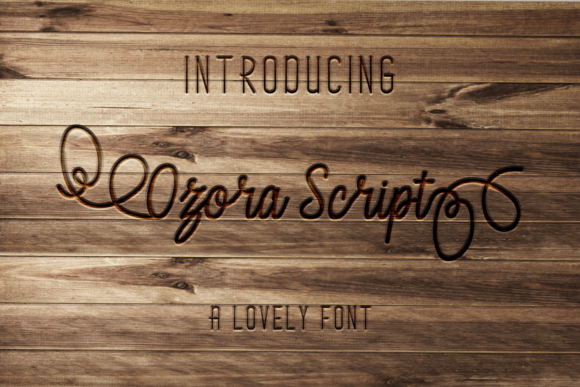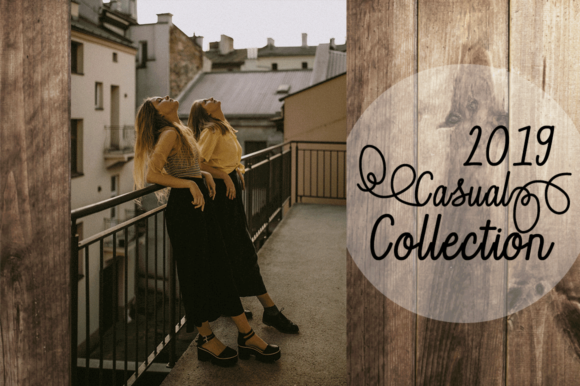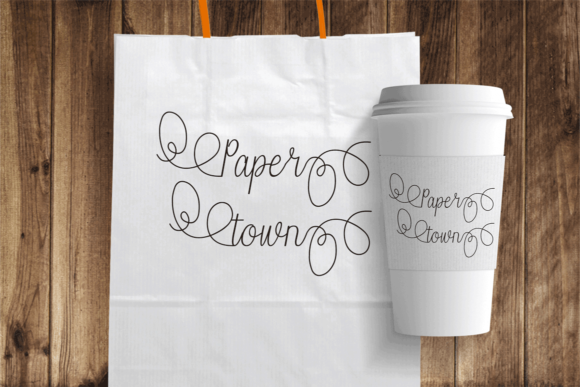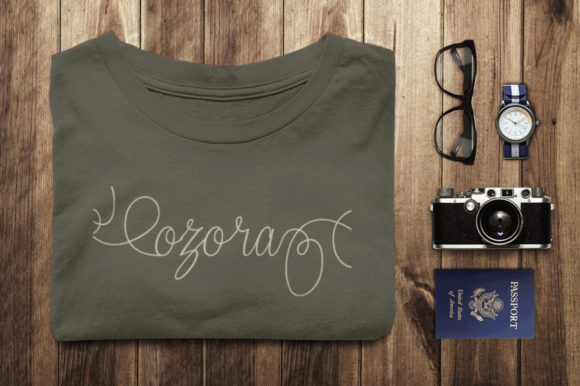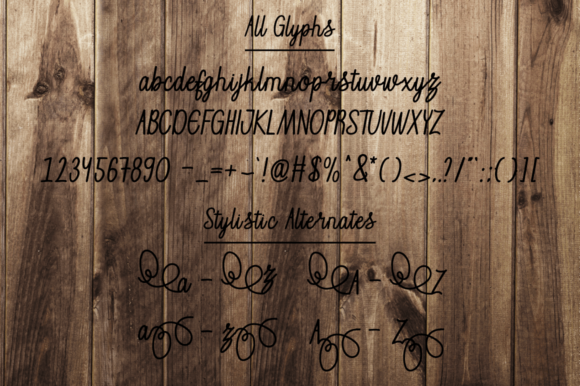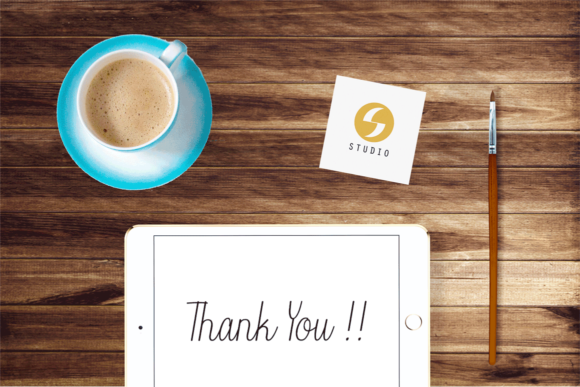
Ozora Script Font
About Ozora Script Font
The Ozora is a beautiful handwritten script font. It has stylish letters which can be used perfectly in hot stamping, headings, labels, and more!